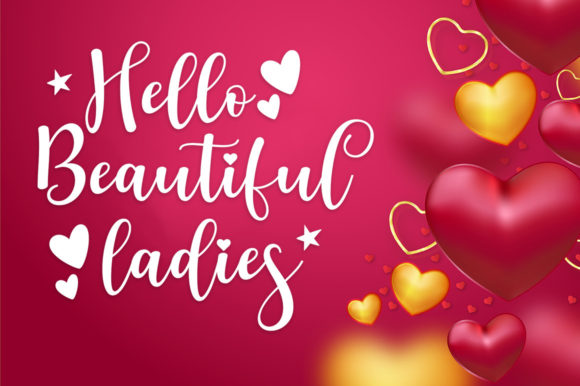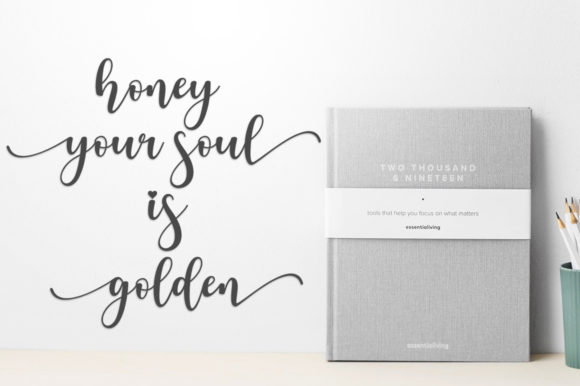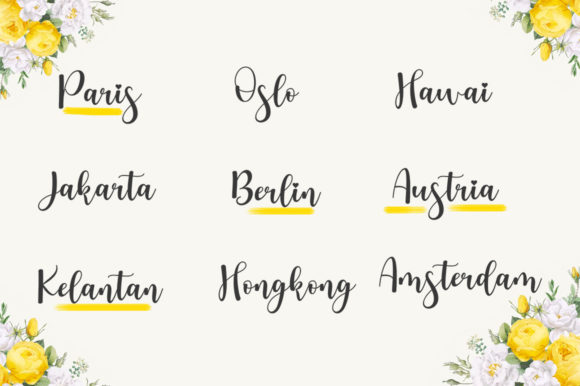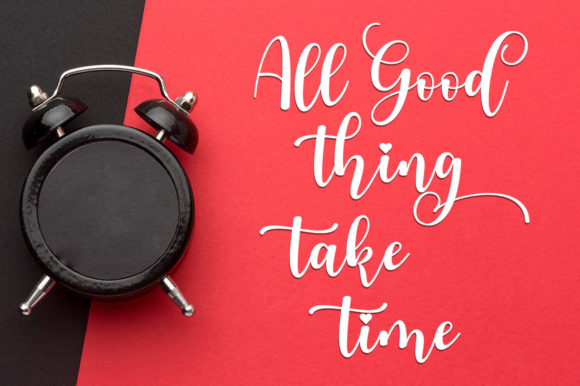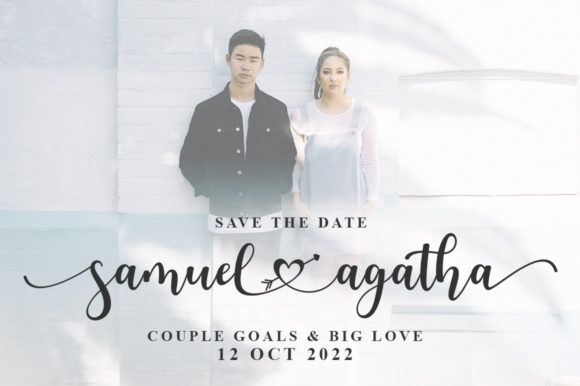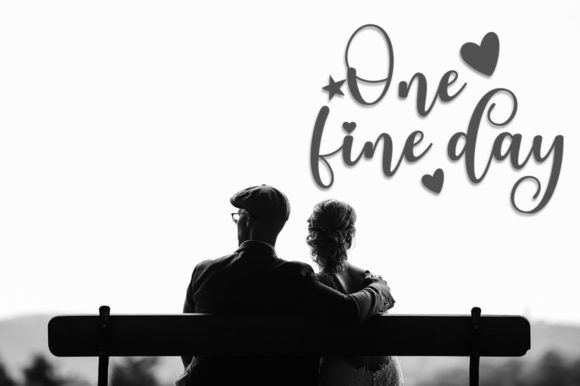
Bastian Melany Font
About Bastian Melany Font
Bastian Melany is an exquisite light handwritten font that brings a touch of elegance and sophistication to your design projects. With its unique style and stunning impact, this font is perfect for adding a luxurious spark to your creations.
The delicate and flowing nature of Bastian Melany gives it a charming and distinctive feel. Each letter is beautifully crafted, creating a harmonious and graceful appearance. Whether you’re using it for logos, branding, invitations, or any other design application, Bastian Melany will captivate your audience and leave a lasting impression.
One of the standout features of Bastian Melany is its PUA encoding. This means that you can easily access all of the amazing glyphs and ligatures that are included with the font. These additional characters and design elements provide you with endless possibilities for customization and creativity. Add decorative flourishes, swashes, and alternative letterforms to make your designs truly unique.
The versatility of Bastian Melany allows it to be used across a wide range of design projects. From wedding stationery and greeting cards to social media graphics and packaging, this font will elevate your work and give it a touch of elegance. Its light and airy appearance creates a sense of sophistication and refinement, making it suitable for both formal and casual designs.
In conclusion, Bastian Melany is a beautiful light handwritten font that adds a unique and stunning impact to your design projects. Its PUA encoding ensures easy access to a wide range of glyphs and ligatures, allowing you to unleash your creativity and create truly remarkable designs. Whether you’re working on branding, invitations, or any other project, Bastian Melany will bring a touch of luxury and elegance to your creations.